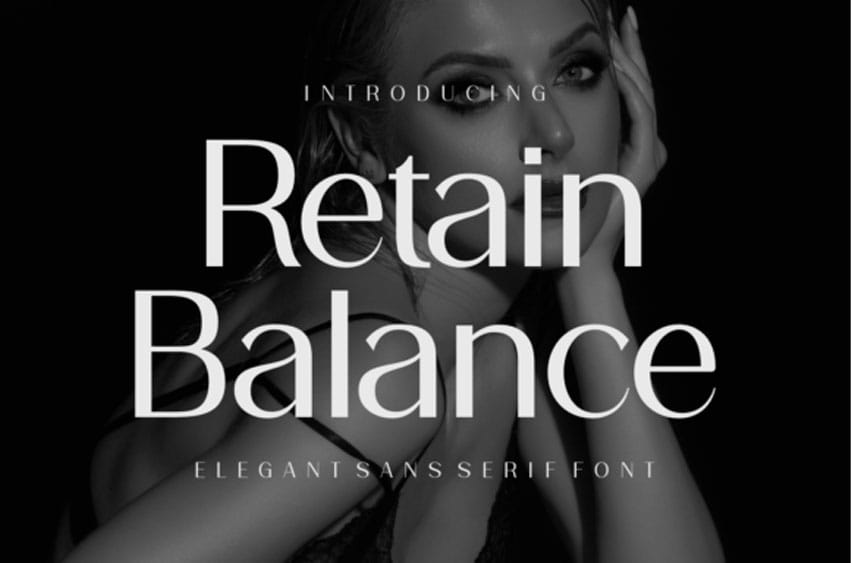
Retain Balance Font is a stylish sans serif typeface that combines modern elegance with timeless appeal. Featuring sharp angles and graceful curves, this font is designed for high-impact headlines, fashion branding, lifestyle blogs, and social media graphics. Its clean strokes and dynamic proportions deliver an editorial look that’s bold yet refined.
Perfect for both digital and print use, Retain Balance adds sophistication to your creative work without sacrificing readability. Whether you’re crafting elegant wedding invitations, modern logos, or visual content for upscale clients, this font ensures your designs strike the perfect balance.